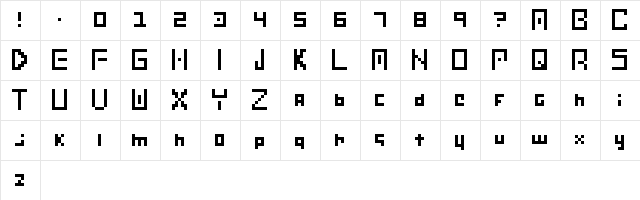
Vault Regular
| Designer | toughluck |
Design Context for Vault Typeface
Vault is a composed and adaptable typeface that performs quietly and consistently across a wide range of design contexts.